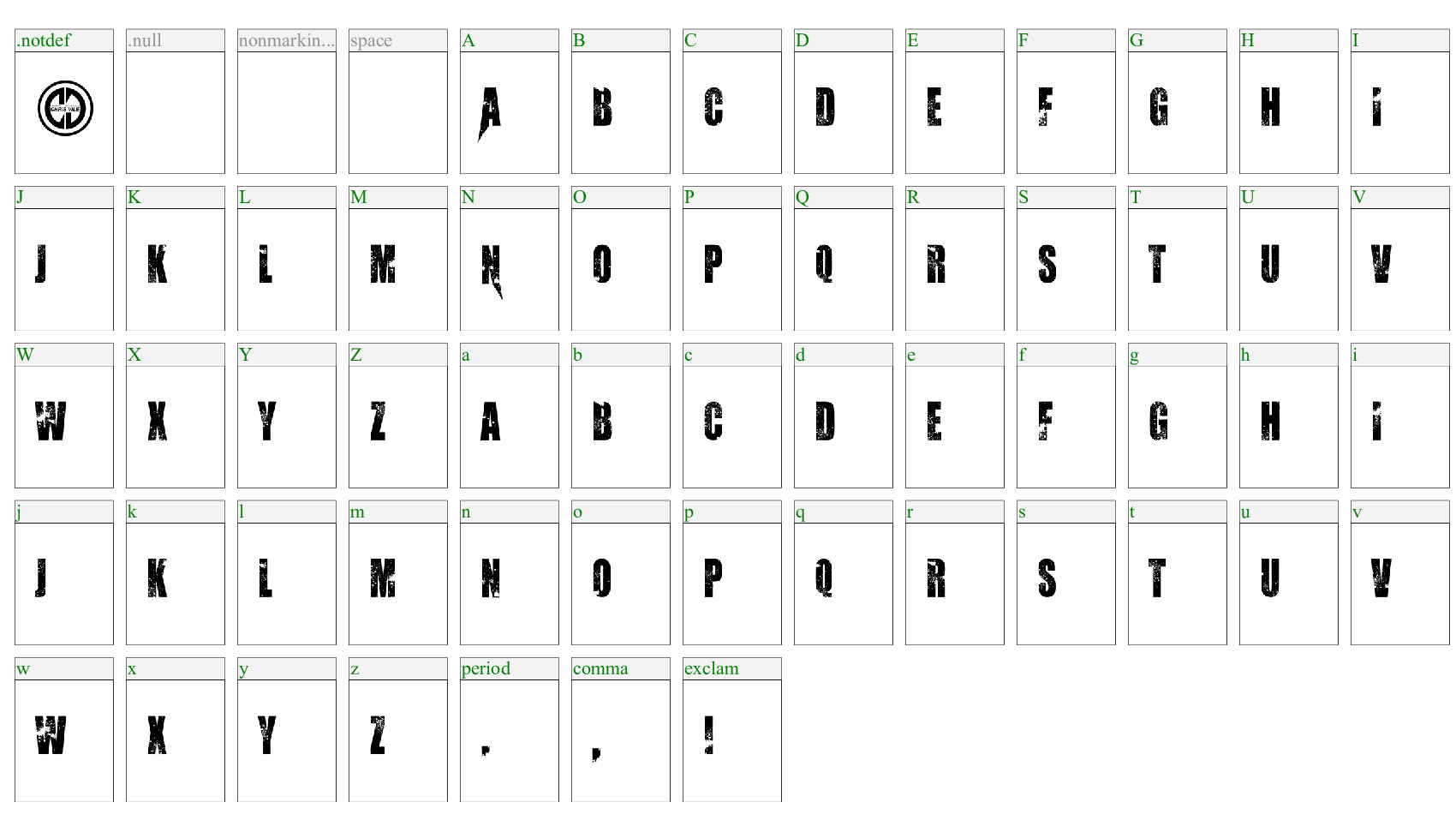
Abandon: A rough and rugged font with a distressed, eroded look. Its bold letters and jagged edges evoke a sense of neglect, abandonment, and decay, making it ideal for projects with a raw and edgy aesthetic. Whether used to create bold headlines, punk rock album covers, or alternative fashion designs, Abandon font is sure to bring a bold and rebellious energy to any project.
Lowercase: Yes, same as uppercase
Numbers & Symbols: No
Style: Destroyed & Eroded
This font does NOT include a solid type.